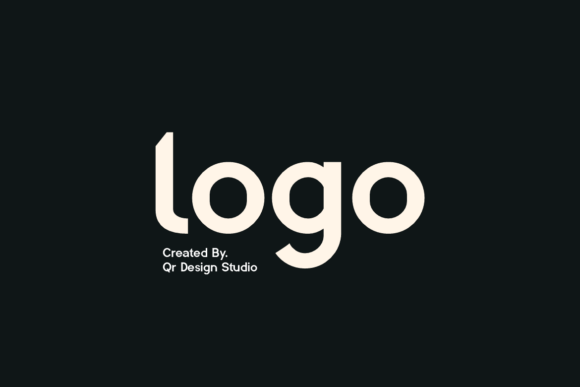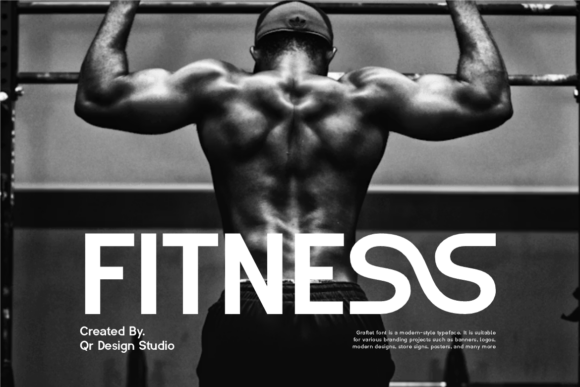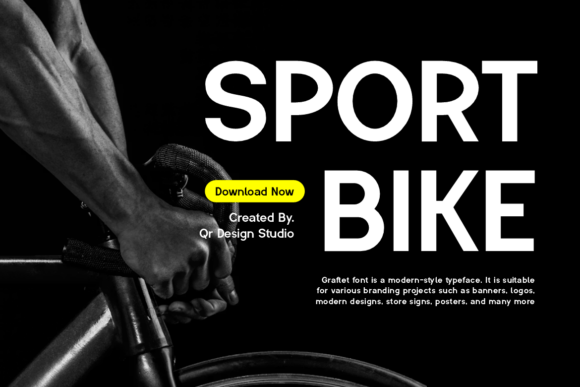
Introduction to Graftet Font
Graftet Font is a modern and authentic display typeface.
It’s perfect for various branding projects such as logos, modern designs, and more This font stands out beautifully in a wide range of contexts.
Graftet Font offers exceptional quality and versatility, making it a valuable addition to your design toolkit. Whether you’re creating for personal projects or commercial use, Graftet Font delivers professional results.